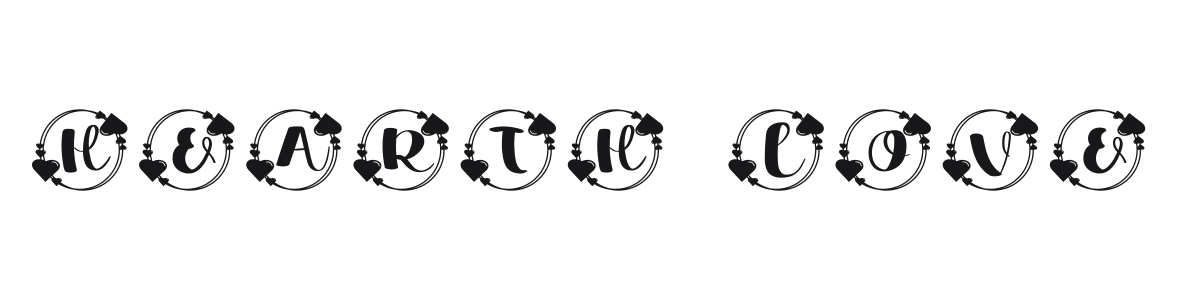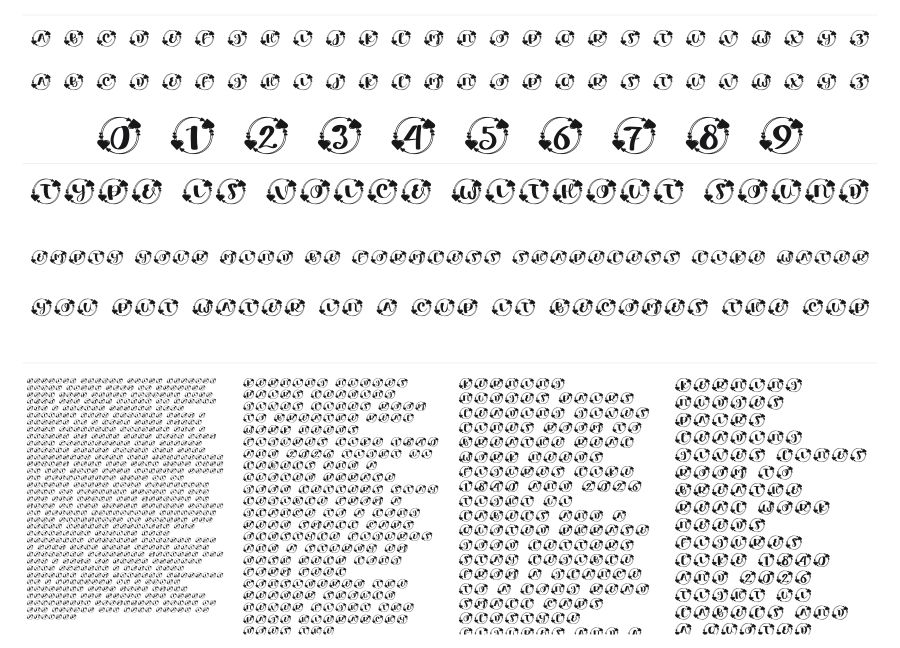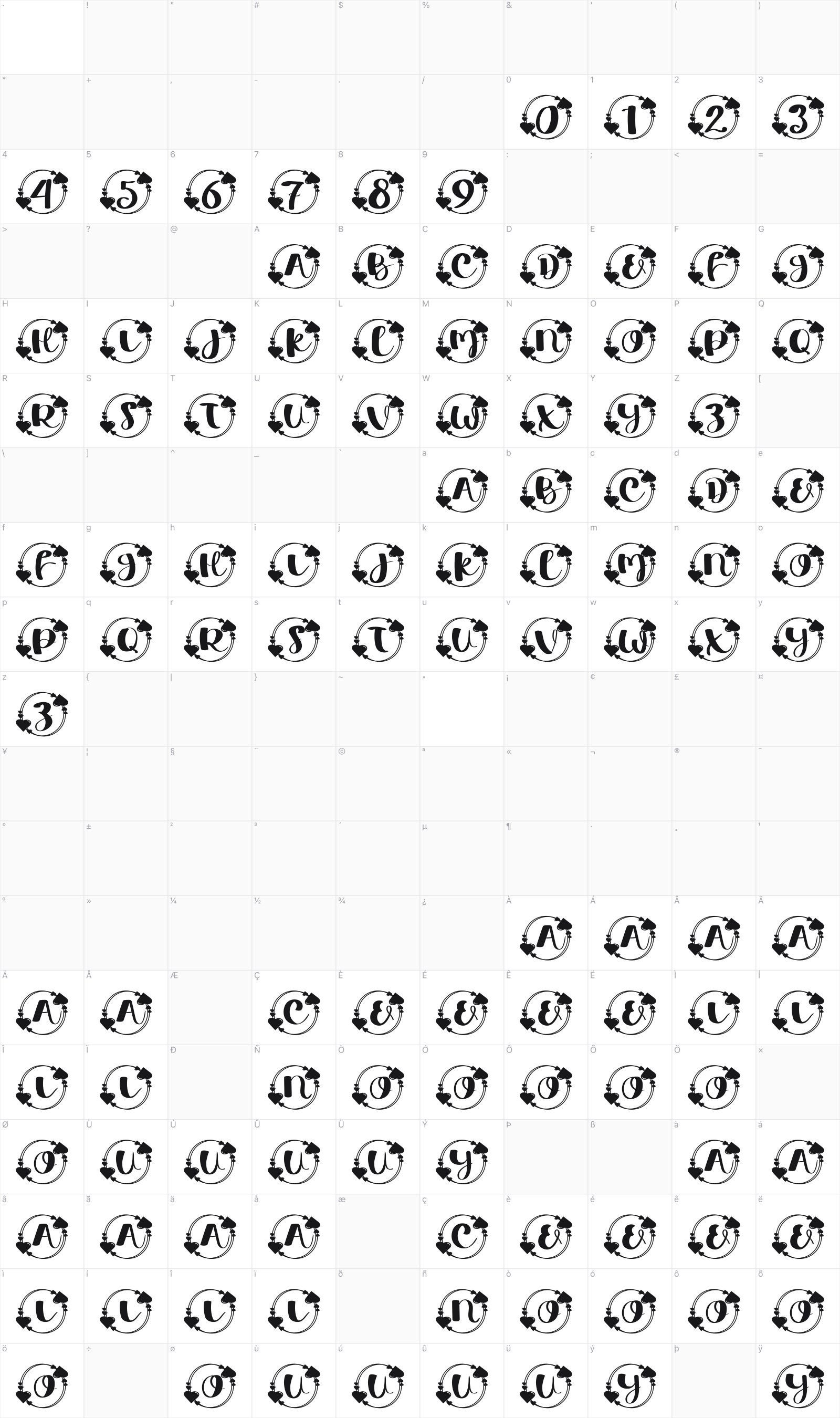
Hearth Love
Hearth Love is a monogram display font that wraps each character in a circular frame adorned with hearts and floral accents. The result is a decorative, stamp-like treatment that leans heavily into romance and celebration. Best used large, for wedding stationery, greeting cards, or any project that needs instant warmth.